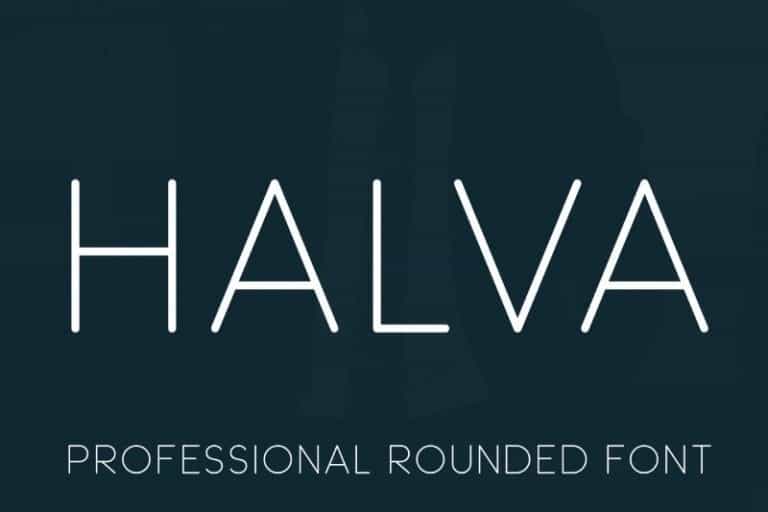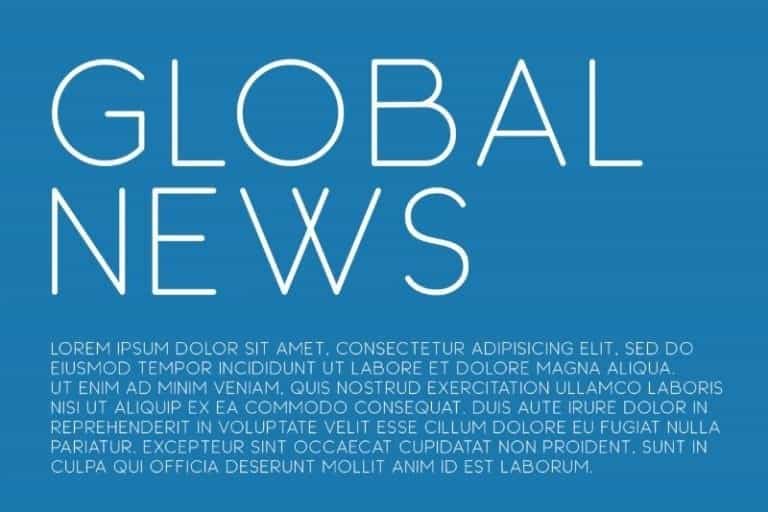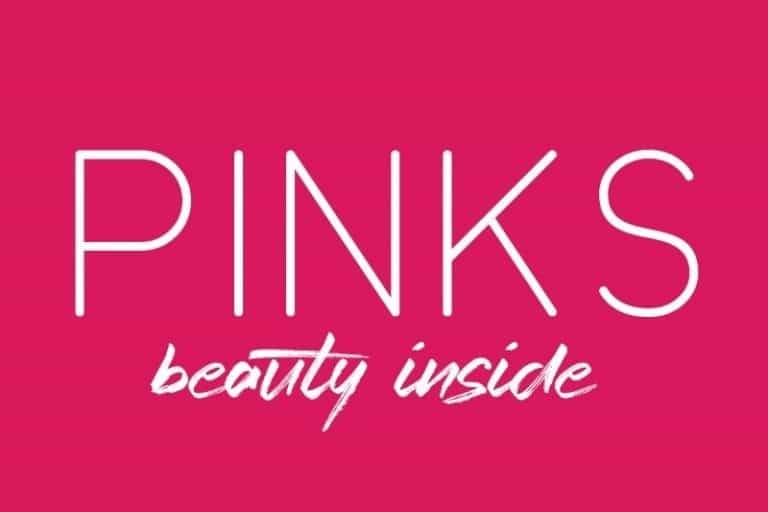
Halva is a minimalist stripped-down sans serif font coming in two different weights. Clean lines and sharp edges contribute to its delicate and romantic feel, making it perfect for weddings as well as logos, print, quotes signage… The added weights also aimed at branding designers allow for a novel look both online and offline too!